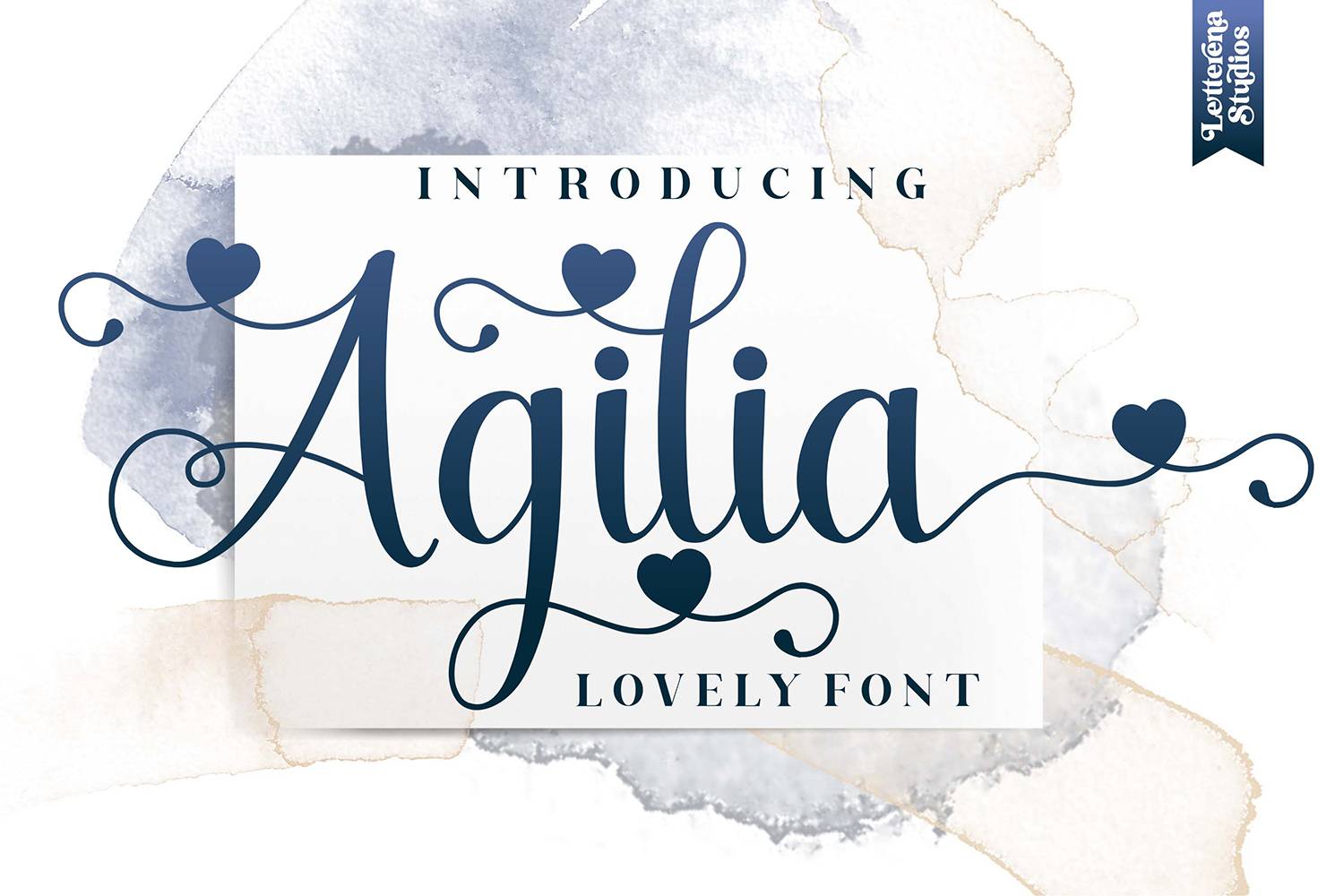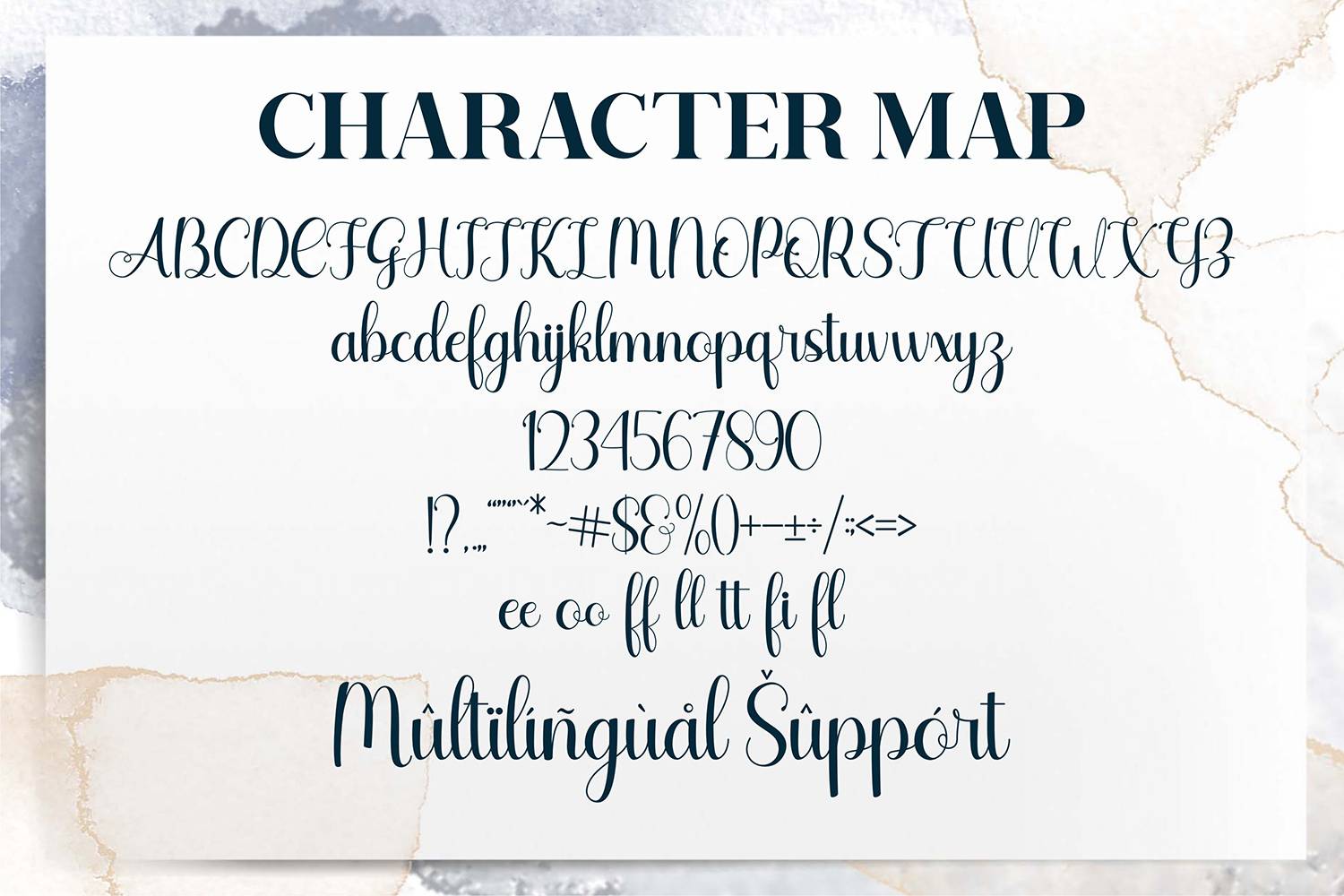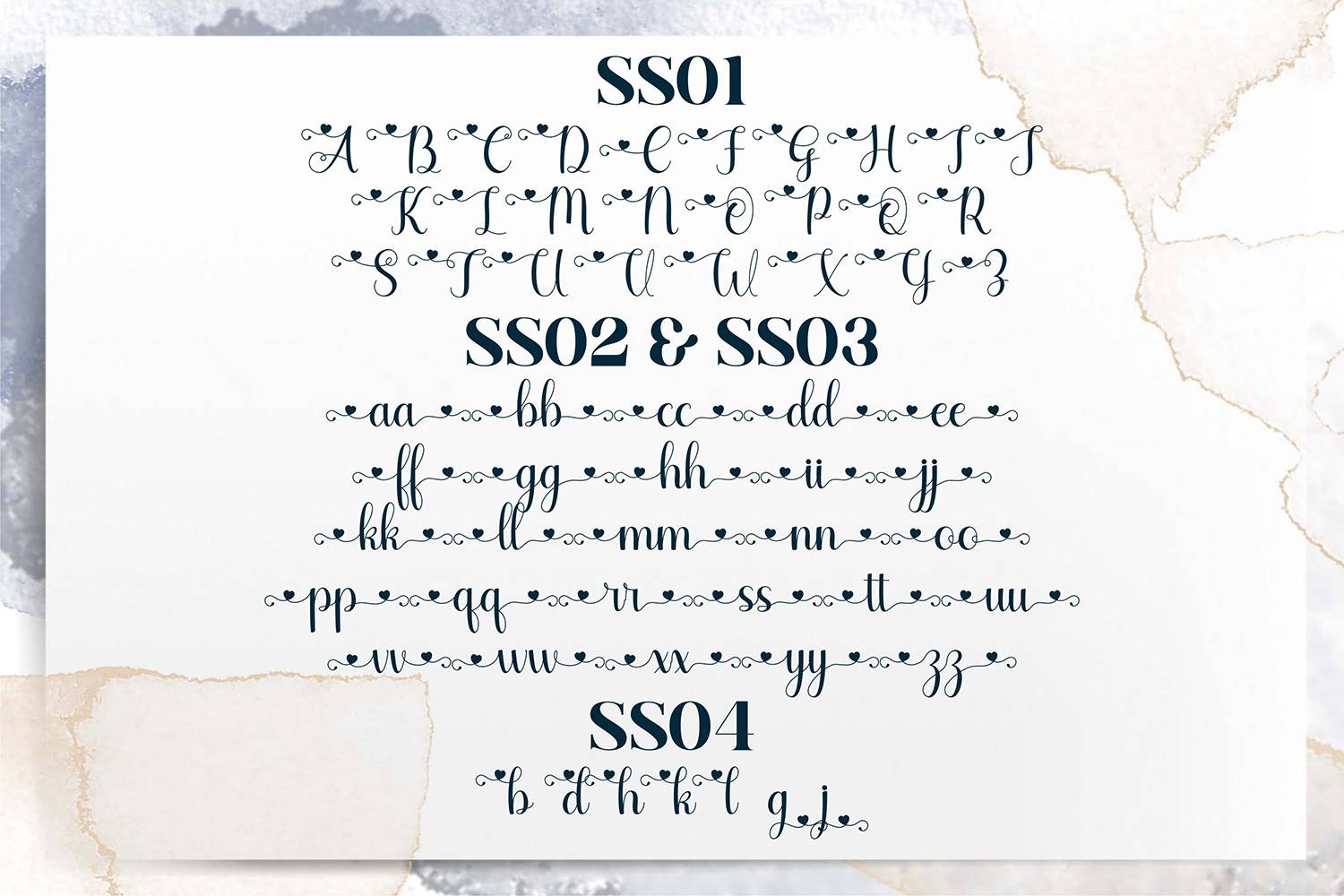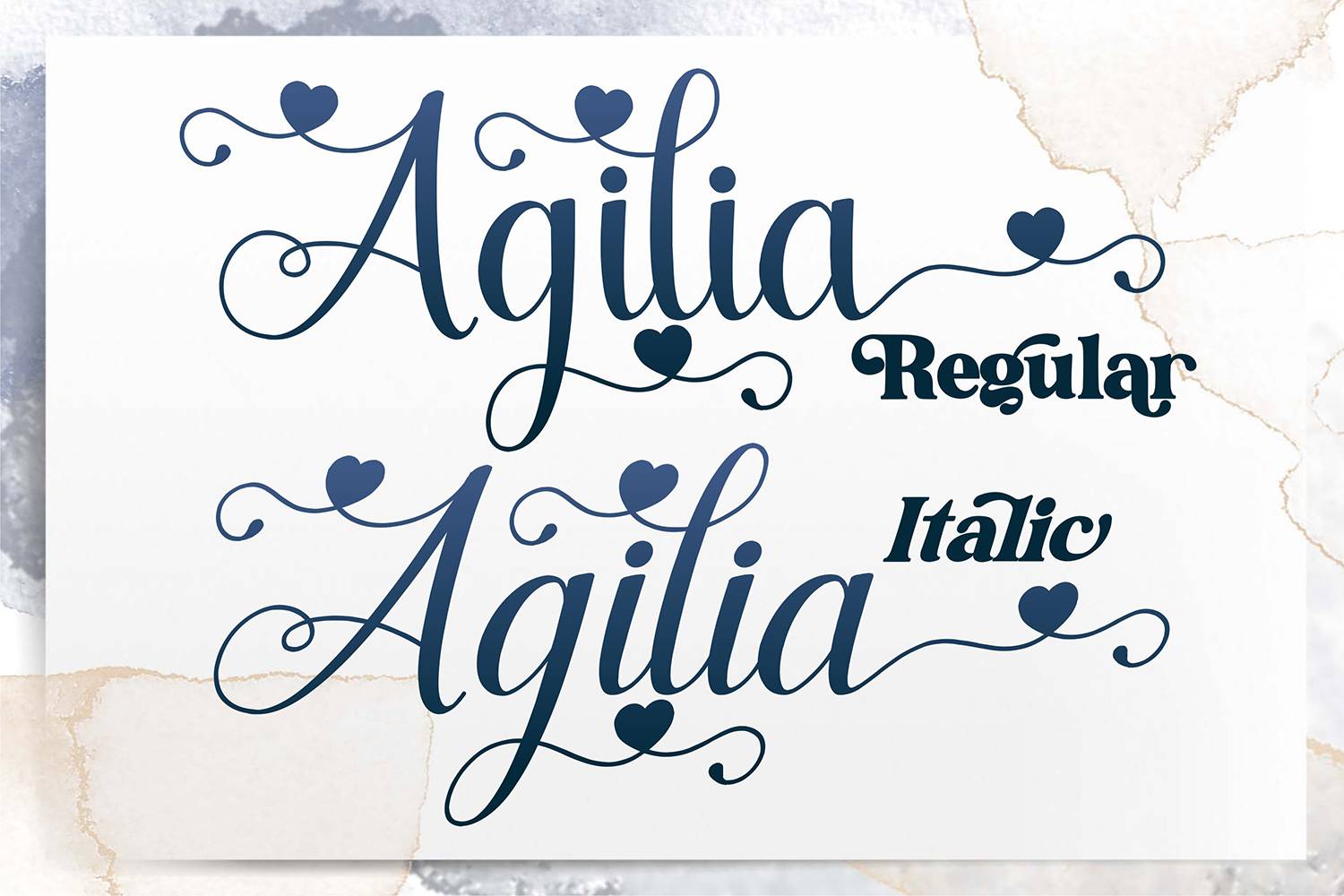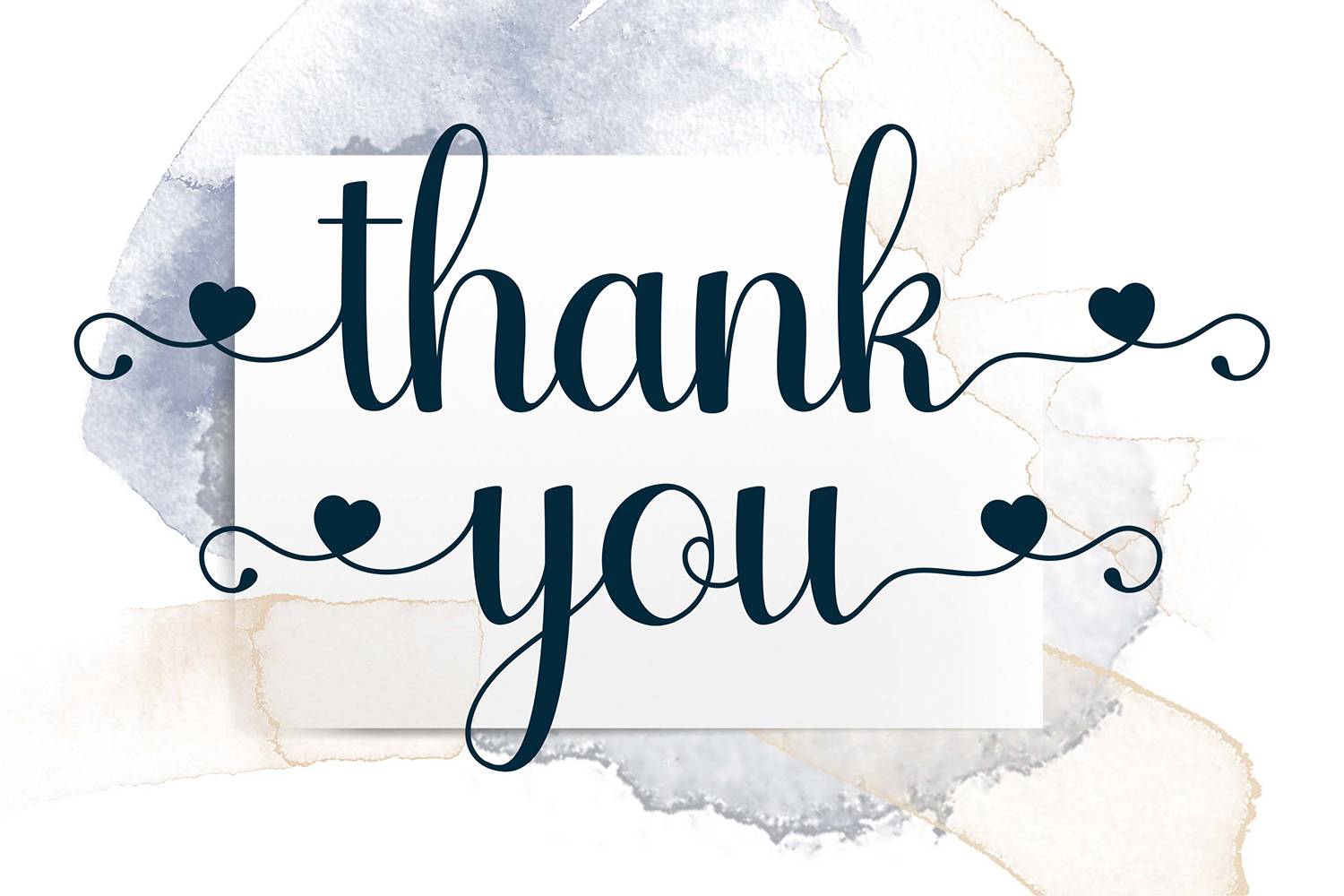
Agilia is a stylish script font that combines elegance with playful flourishes, featuring high contrast strokes and delicate swirls that add a refined, graceful touch. Its tall, narrow letterforms and unique decorative details make it perfect for sophisticated branding, invitations, and headlines where a sense of charm and personality is desired. This font shines in designs that seek to evoke creativity and elegance without feeling overly formal.
Agilia Font
About Agilia Font
| Font family | Agilia Font |